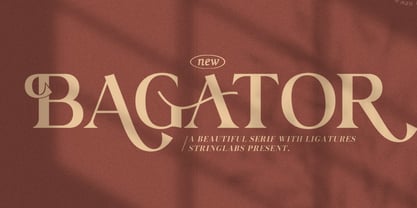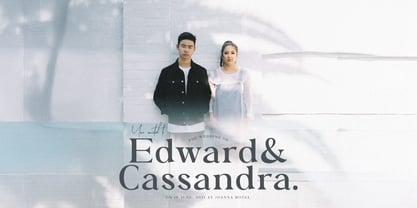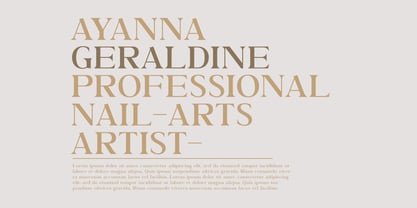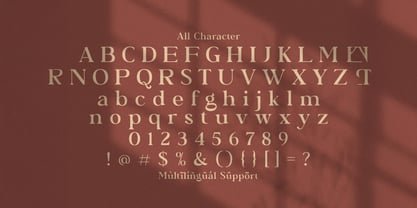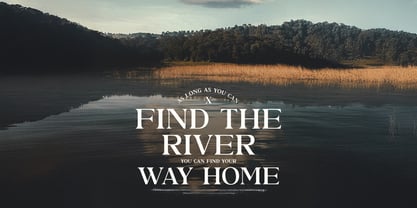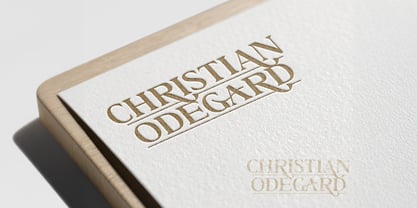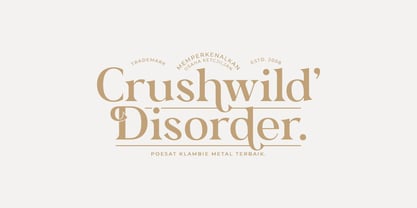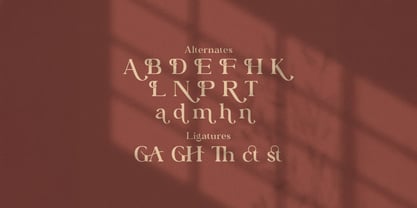
Die Schriftfamilie Bagator wurde von Virgiawan Listanto entworfen und von Stringlabs Creative Studio veröffentlicht. Bagator enthält 1 Stile.
Bagator is a sophisticated classic serif font that blends timeless elegance with modern versatility. With its strong serifs, balanced proportions, and clean lines, Bagator is perfect for delivering a message with authority, style, and clarity. Ideal for editorial layouts, branding, packaging, and high-end design, Bagator adds a touch of professionalism and vintage charm to any project.
Bagator